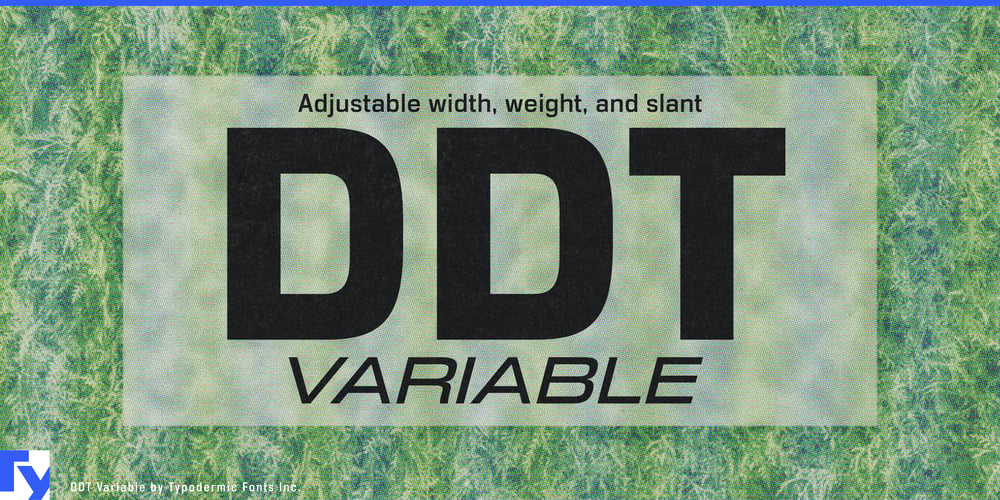
Ddt Variable
Ddt Variable font
Ddt Variable Font Family was designed by Ray Larabie and published by Typodermic. Ddt Variable contains 1 styles and family package options. Introducing DDT Variable, the epitome of modern typography that exudes professionalism and authority with unprecedented flexibility. Drawing inspiration from time-tested classics like Univers and Eurostile, DDT Variable’s unique superelliptical shape strikes the perfect balance between clarity and seriousness, now enhanced by cutting-edge variable font technology.What sets DDT Variable apart is its dynamic nature, featuring three powerful axes: weight, width, and slant. This innovative approach allows you to fine-tune your typography with precision, creating a perfect fit for any design context. Need a subtle adjustment between regular and condensed? Or perhaps a weight that’s just a touch bolder than medium? With DDT Variable, you have infinite possibilities at your fingertips. Functionality remains at the forefront of DDT Variable’s design. It offers a wide range of numeric styles, including monospaced lining numerals, proportional lining numerals, and proportional old-style numerals. Equipped with OpenType fractions and numeric ordinals, DDT Variable is an ideal choice for all your design needs, from technical documents to creative layouts.The true power of DDT Variable lies in its ability to adapt seamlessly to your requirements. Instead of being limited to preset widths and weights, you can now glide effortlessly along each axis, creating the exact look you need. Want to craft an impactful heading? Boost the weight and widen the width. Need sleek body text? Adjust the slant and fine-tune the weight for optimal readability. This versatility doesn’t just enhance your design possibilities—it also streamlines your workflow. With a single font file, you have access to an entire spectrum of styles, eliminating the need to switch between multiple font files and ensuring consistency across your projects.DDT Variable is more than just a typeface; it’s a comprehensive design tool that adapts to your creative vision. Whether you’re working on corporate branding, editorial layouts, or digital interfaces, DDT Variable provides the flexibility and functionality to elevate your typography to new heights. Embrace the future of typography with DDT Variable—the ultimate neutral-sans typeface that seamlessly blends form and function, offering unparalleled control and leaving a lasting impression on your audience. Experience the power of variable font technology and take your designs to the next level with DDT Variable.Most Latin-based European, Vietnamese, Greek, and most Cyrillic-based writing systems are supported, including the following languages. Afaan Oromo, Afar, Afrikaans, Albanian, Alsatian, Aromanian, Aymara, Azerbaijani, Bashkir, Bashkir (Latin), Basque, Belarusian, Belarusian (Latin), Bemba, Bikol, Bosnian, Breton, Bulgarian, Buryat, Cape Verdean, Creole, Catalan, Cebuano, Chamorro, Chavacano, Chichewa, Crimean Tatar (Latin), Croatian, Czech, Danish, Dawan, Dholuo, Dungan, Dutch, English, Estonian, Faroese, Fijian, Filipino, Finnish, French, Frisian, Friulian, Gagauz (Latin), Galician, Ganda, Genoese, German, Gikuyu, Greenlandic, Guadeloupean Creole, Haitian Creole, Hawaiian, Hiligaynon, Hungarian, Icelandic, Igbo, Ilocano, Indonesian, Irish, Italian, Jamaican, Kaingang, Khalkha, Kalmyk, Kanuri, Kaqchikel, Karakalpak (Latin), Kashubian, Kazakh, Kikongo, Kinyarwanda, Kirundi, Komi-Permyak, Kurdish, Kurdish (Latin), Kyrgyz, Latvian, Lithuanian, Lombard, Low Saxon, Luxembourgish, Maasai, Macedonian, Makhuwa, Malay, Maltese, Maori, Moldovan, Montenegrin, Nahuatl, Ndebele, Neapolitan, Norwegian, Novial, Occitan, Ossetian (Latin), Papiamento, Piedmontese, Polish, Portuguese, Quechua, Rarotongan, Romanian, Romansh, Russian, Rusyn, Sami, Sango, Saramaccan, Sardinian, Scottish Gaelic, Serbian, Serbian (Latin), Shona, Sicilian, Silesian, Slovak, Slovenian, Somali, Sorbian, Sotho, Spanish, Swahili, Swazi, Swedish, Tagalog, Tahitian, Tajik, Tatar, Tetum, Tongan, Tshiluba, Tsonga, Tswana, Tumbuka, Turkish, Turkmen (Latin), Tuvaluan, Ukrainian, Uzbek, Uzbek (Latin), Venda, Venetian, Vepsian, Vietnamese, Võro, Walloon, Waray-Waray, Wayuu, Welsh, Wolof, Xavante, Xhosa, Yapese, Zapotec, Zarma, Zazaki, Zulu and Zuni.